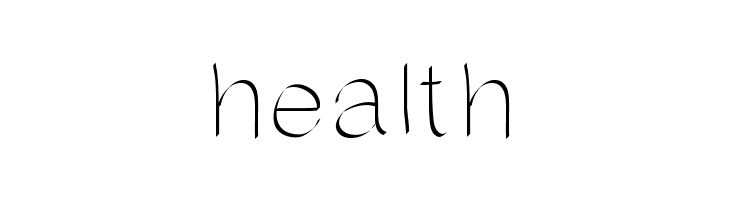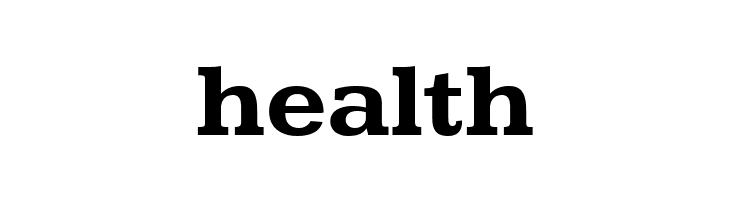
An elegant serif font with refined strokes and balanced proportions.
A sleek, modern font with thin lines and a minimalist aesthetic.
A sleek, minimalist font with elongated, thin letterforms and a modern vintage appeal.
A modern, artistic font with tall, slender letterforms and subtle curves.
A classic italic typeface with elegant curves and delicate serifs.
A tall, narrow serif font with a blend of classic and modern elements.
A modern serif font with clean lines and elegant serifs.
A bold serif font with strong strokes and pronounced serifs, offering a classic yet modern look.